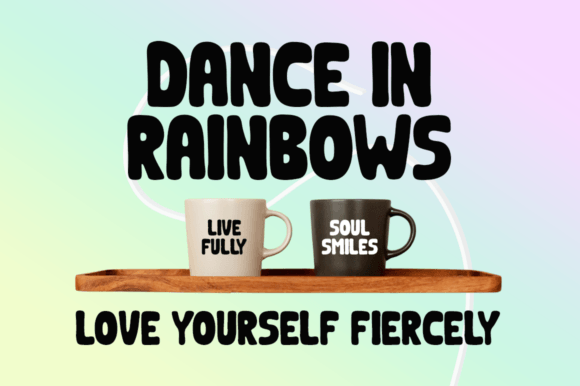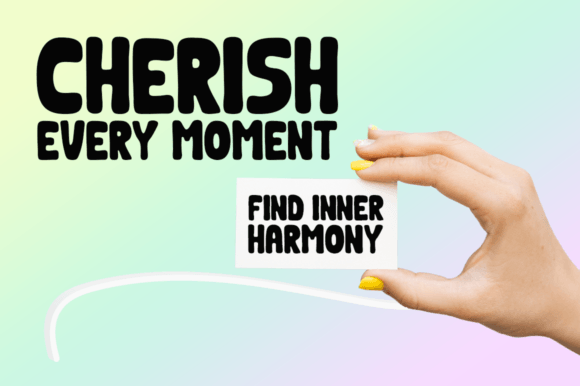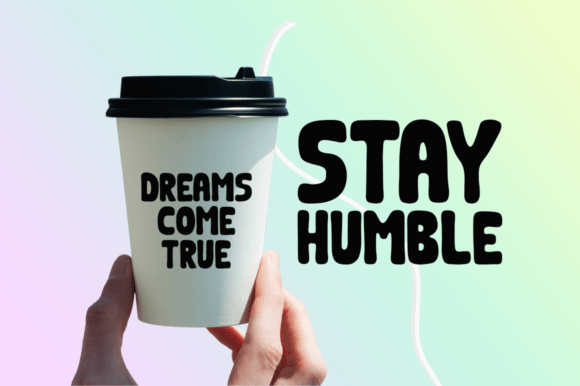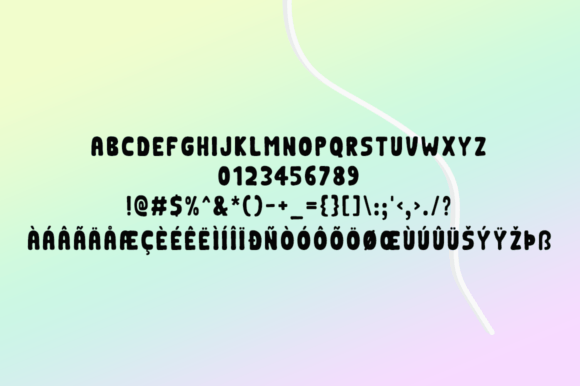
Discover the Serenity of Find Peace Font: Elevate Your Designs with a Unique and Inspiring Typeface
In the world of design, fonts play a crucial role in conveying emotions and setting the tone for a project. For those seeking a creative and inspiring typeface, look no further than Find Peace Font. This stunning display font is designed to bring a sense of serenity and calmness to your designs, making it perfect for crafters, designers, and anyone looking to add a touch of personality to their projects.
The Story Behind Find Peace Font
Find Peace Font is a carefully crafted typeface that embodies the essence of tranquility and peacefulness. Its unique design is inspired by the beauty of nature and the importance of finding serenity in our busy lives. Whether you’re working on a branding project, a website, or a creative craft, this font is sure to inspire and uplift your audience.
Key Features of Find Peace Font
- Unique and Creative Design: Find Peace Font boasts a distinctive and eye-catching design that sets it apart from other fonts.
- Inspiring and Uplifting: The font’s peaceful and calming vibe is sure to inspire and uplift your audience.
- Perfect for Display Text: Find Peace Font is optimized for display text, making it ideal for headlines, titles, and other prominent text elements.
- Easy to Read: Despite its creative design, Find Peace Font remains easy to read, ensuring that your message is conveyed clearly and effectively.
- Versatile: This font can be used in a wide range of projects, from branding and advertising to crafting and DIY projects.
Why Choose Find Peace Font?
With so many fonts available, why choose Find Peace Font? Here are just a few reasons why this font stands out:
- Add a Touch of Personality: Find Peace Font allows you to add a unique and creative touch to your projects, setting them apart from the crowd.
- Convey a Sense of Calmness: This font’s peaceful and inspiring vibe makes it perfect for projects that aim to promote relaxation and serenity.
- Stand Out from the Crowd: With its distinctive design, Find Peace Font is sure to grab attention and leave a lasting impression on your audience.
Using Find Peace Font in Your Projects
Find Peace Font is incredibly versatile and can be used in a wide range of projects, including:
- Branding and Logo Design: Use Find Peace Font to create a unique and memorable brand identity.
- Website Design: Add a touch of personality to your website with Find Peace Font, perfect for headlines and titles.
- Crafting and DIY Projects: Use Find Peace Font to add a creative and inspiring touch to your crafting and DIY projects.
- Advertising and Marketing: This font is perfect for creating eye-catching and effective advertising and marketing materials.
In conclusion, Find Peace Font is a unique and inspiring typeface that is perfect for designers, crafters, and anyone looking to add a touch of personality to their projects. With its creative design, peaceful vibe, and versatility, this font is sure to elevate your designs and leave a lasting impression on your audience. So why wait? Discover the serenity of Find Peace Font and bring a sense of calmness and inspiration to your creative projects.